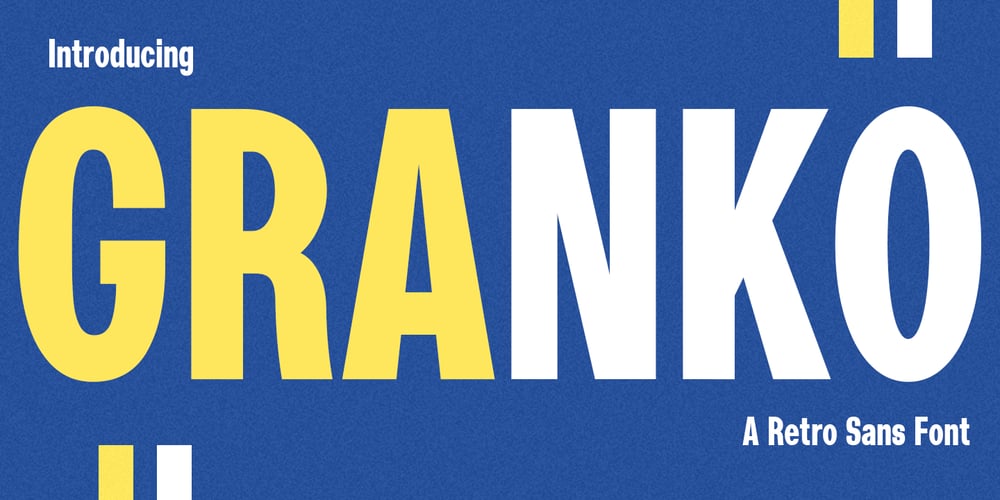
MC Granko Font Family was designed by Gilang Maulana and published by Maulana Creative. MC Granko contains 1 styles and family package options. Granko is a a retro vibes condensed sans serif font. Bold stroke, fun character with a bit of ligatures and alternates. To give you an extra creative work. Granko font support multilingual more than 100+ language. This font is good for logo design, Social media, Movie Titles, Books Titles, a short text even a long text letter and good for your secondary text font with script or serif. Make a stunning work with Granko font. Cheers, Maulana Creative